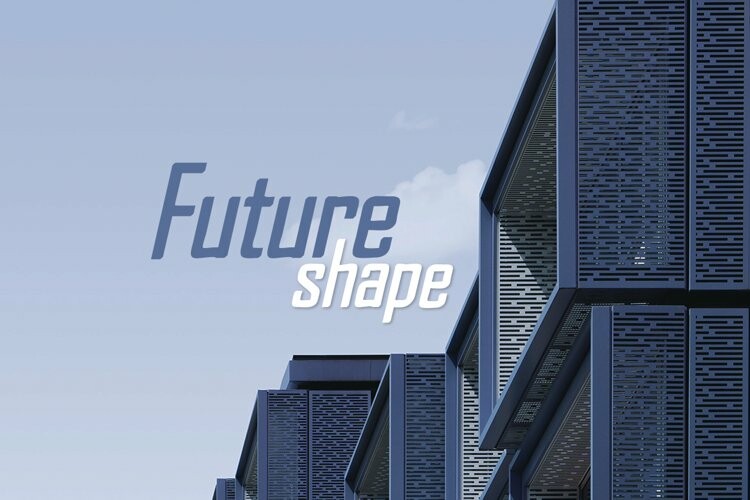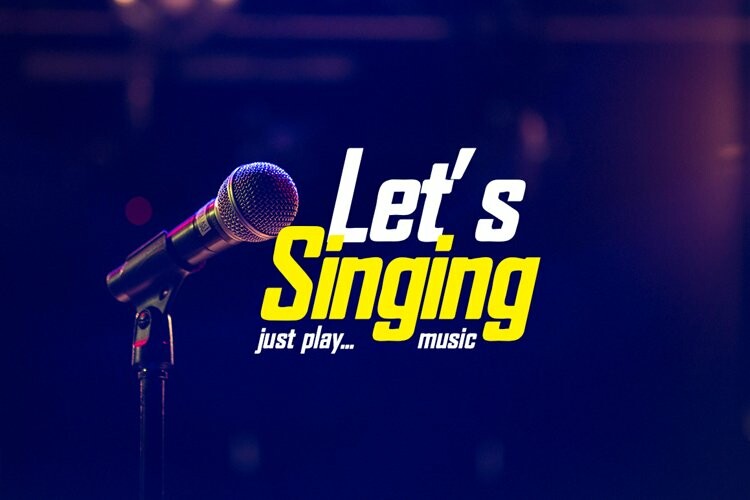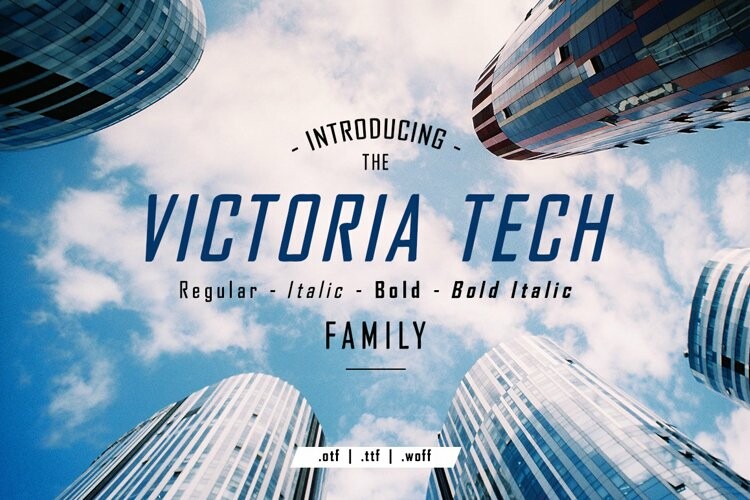
Victoria Tech Font
Victoria Tech FontVictoria Tech family font very suitable for poster, for logo, music cover, clothing, and many many cool design projects. Victoria Tech family font is uppercase and lowercas. Numeric and international font. Regular, Italic, Bold and Bold Italic.